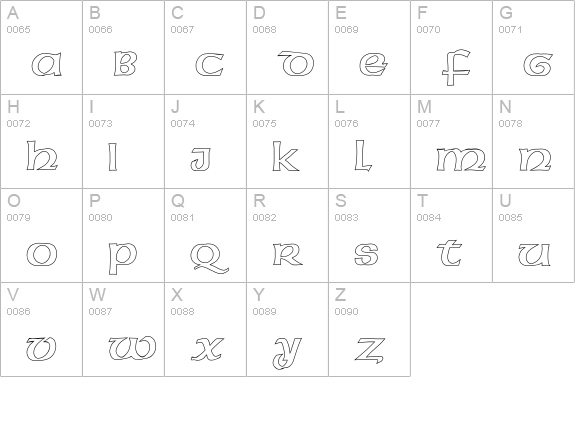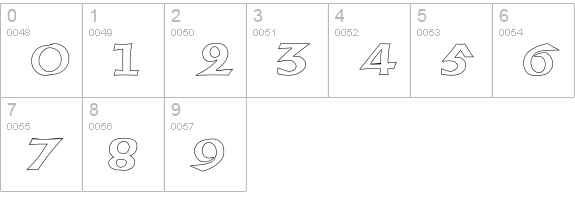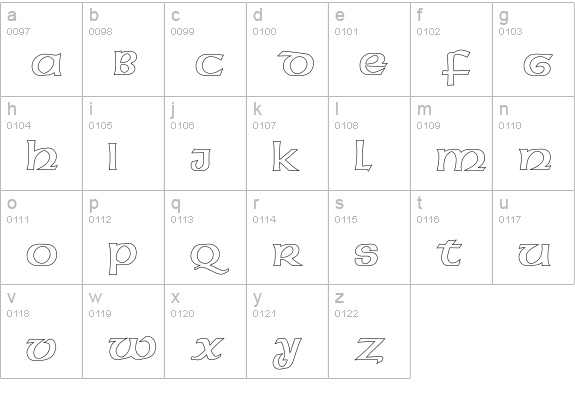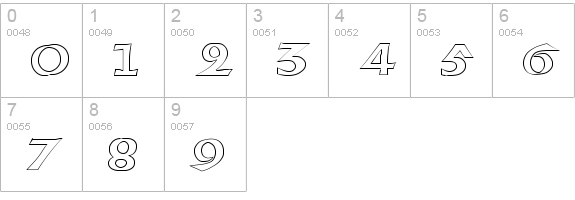
AmericanUncialInitialsOpen Font Details
AmericanUncialInitialsOpen font is a classic and elegant typeface that exudes a sense of tradition and sophistication. Its unique uncial letterforms give it a distinctive and timeless appearance, making it perfect for projects that require a touch of old-world charm. This font is ideal for use in invitations, greeting cards, and other designs where a sense of refinement is desired. The best part about AmericanUncialInitialsOpen font is that it is completely free to download at FontsMarket.com. This means you can easily access this beautiful typeface for your projects without having to spend a penny. Whether you are a designer looking to add a touch of elegance to your work or someone in need of a stylish font for personal use, AmericanUncialInitialsOpen font is the perfect choice. Download it today and elevate your designs with this stunning and free typeface.